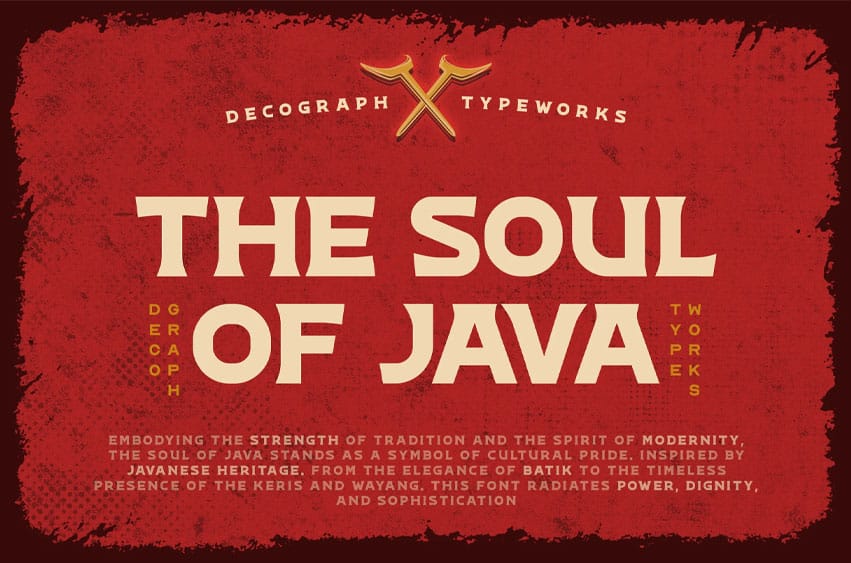
The Soul of Java Font: When cultural heritage meets timeless strength — we introduce THE SOUL OF JAVA. A bold display font inspired by the richness of Javanese tradition, this typeface blends the elegance of batik patterns, the power of the keris, and the spirit of wayang into strong, modern letterforms.
Perfect for posters, branding, product packaging, event titles, and editorial works, The Soul of Java radiates pride, dignity, and sophistication. Its sharp yet balanced design makes it versatile for both cultural themes and contemporary creative projects.